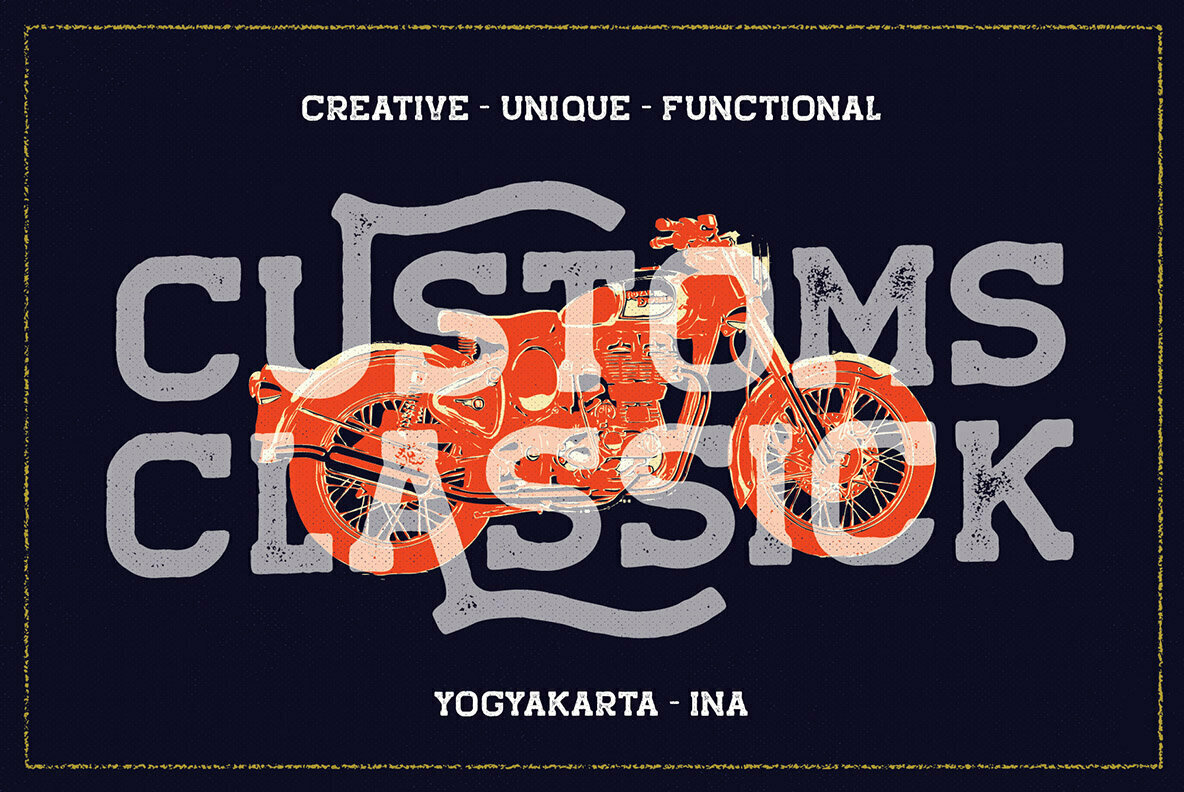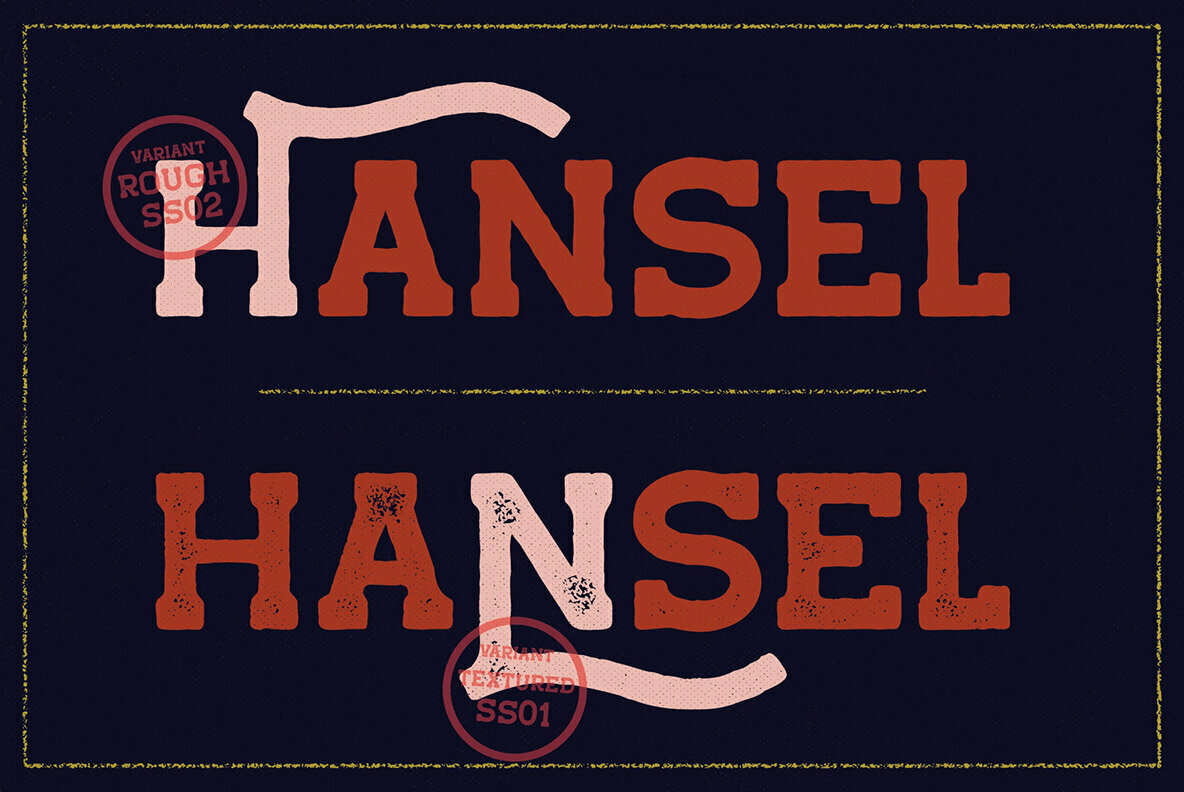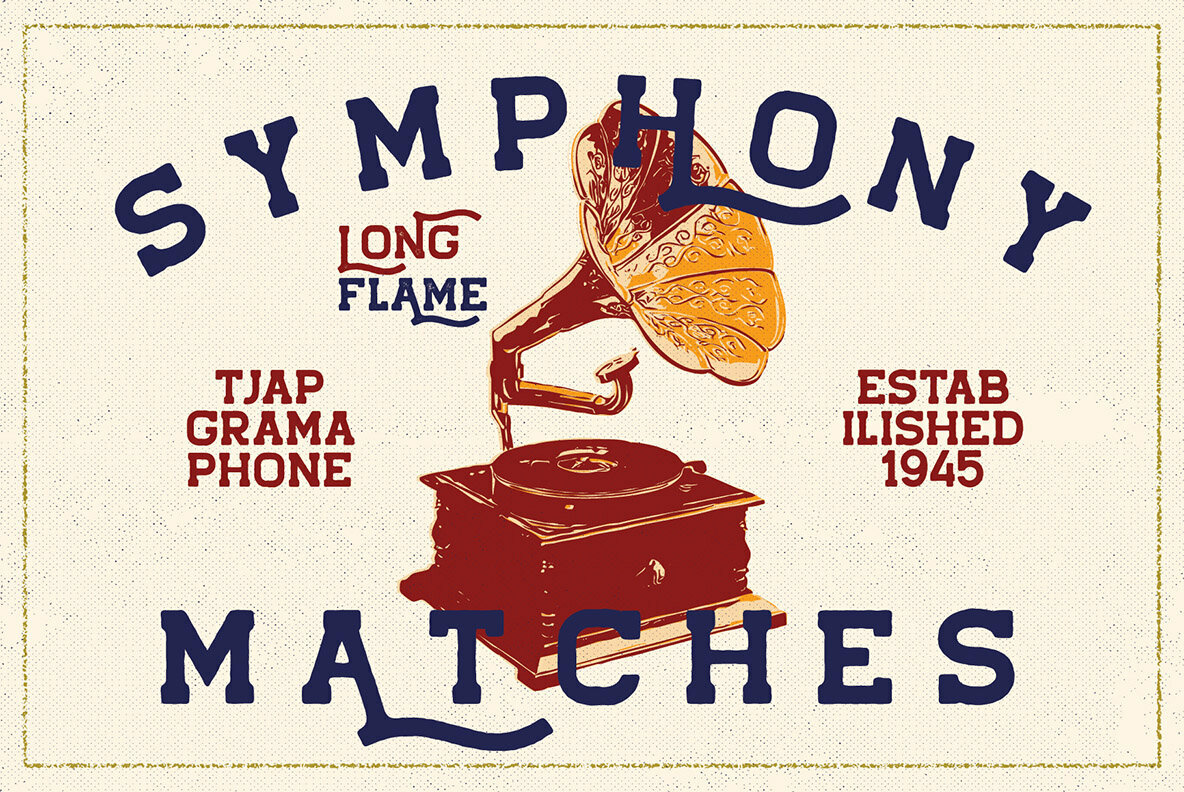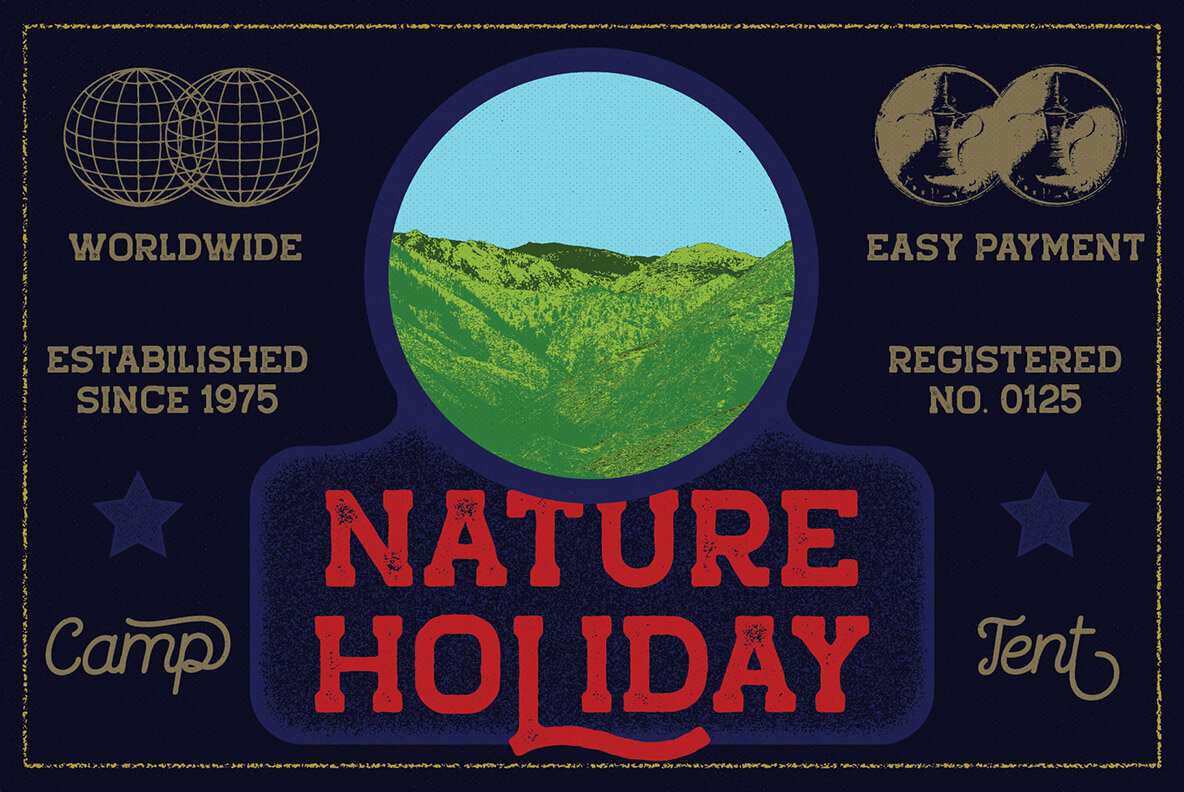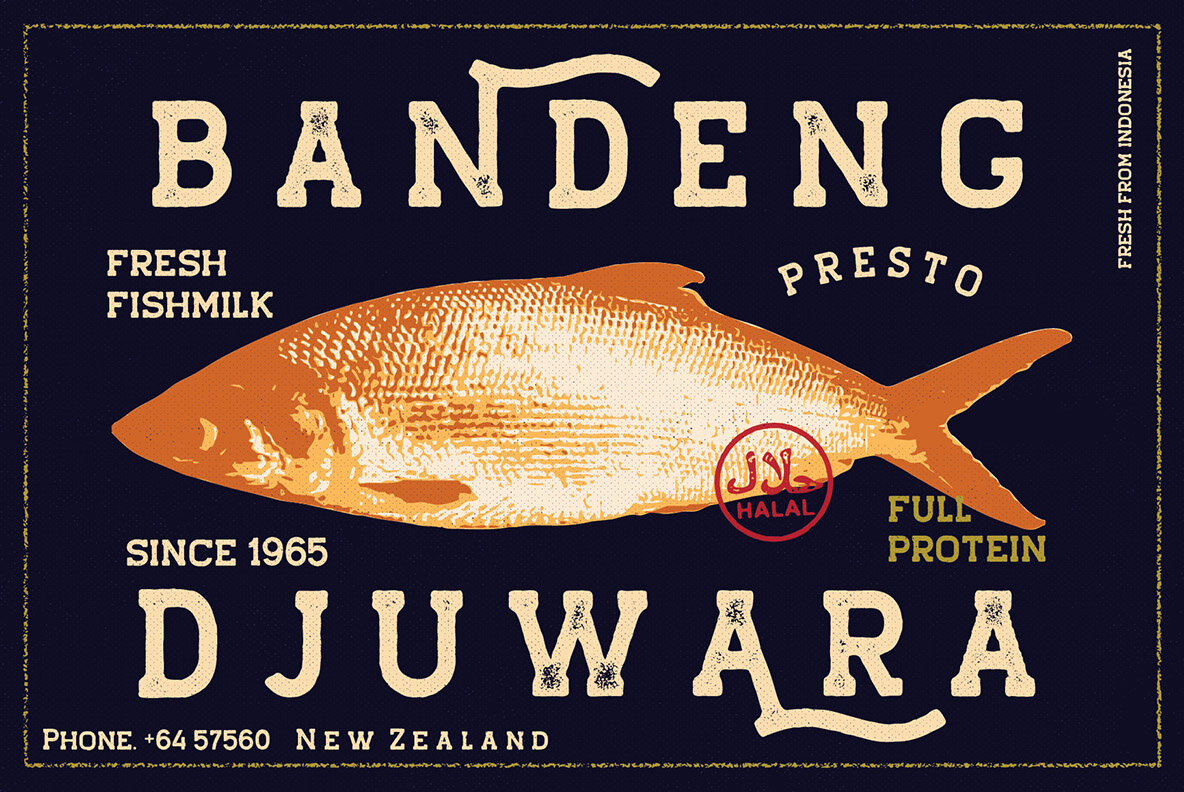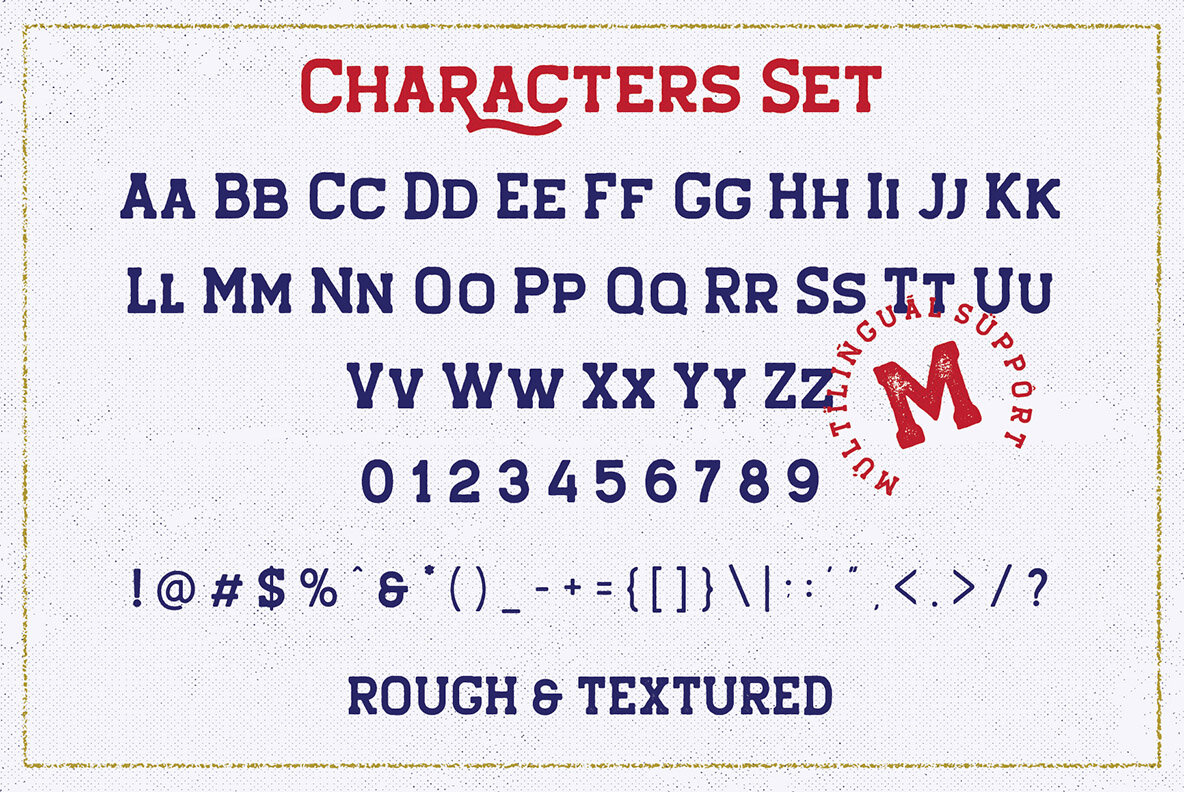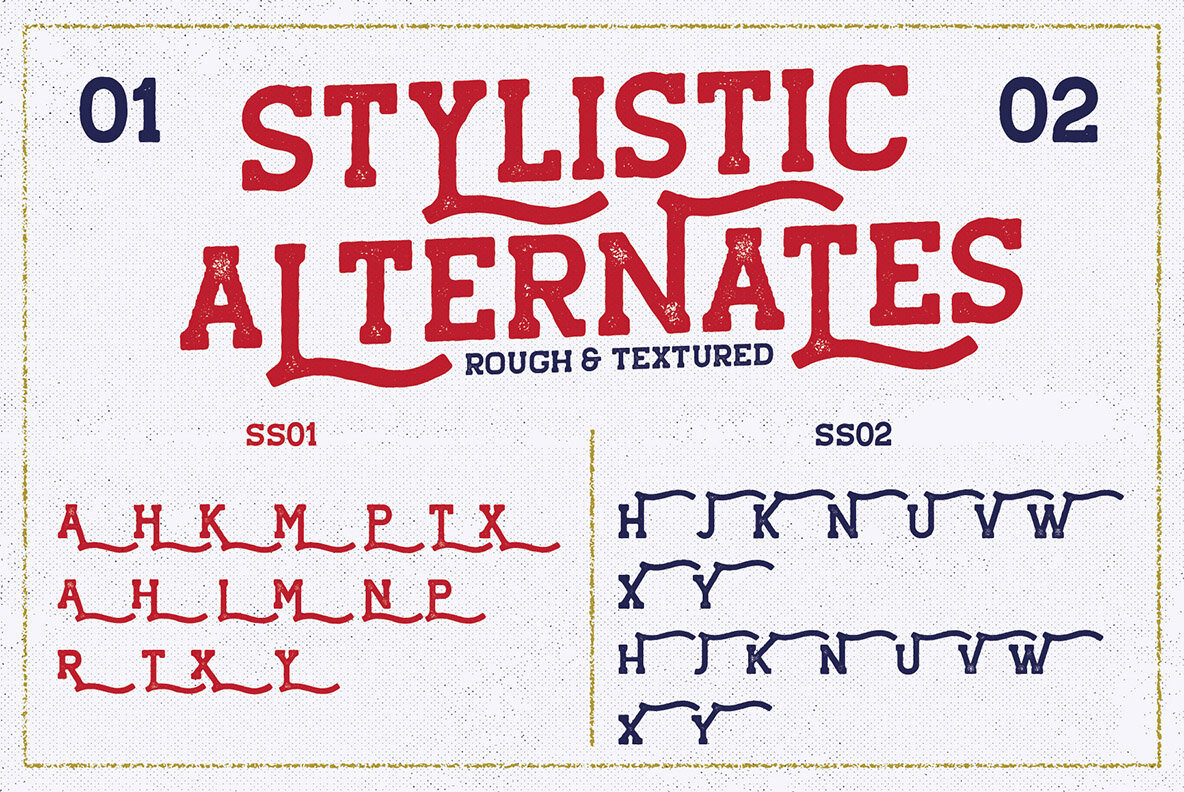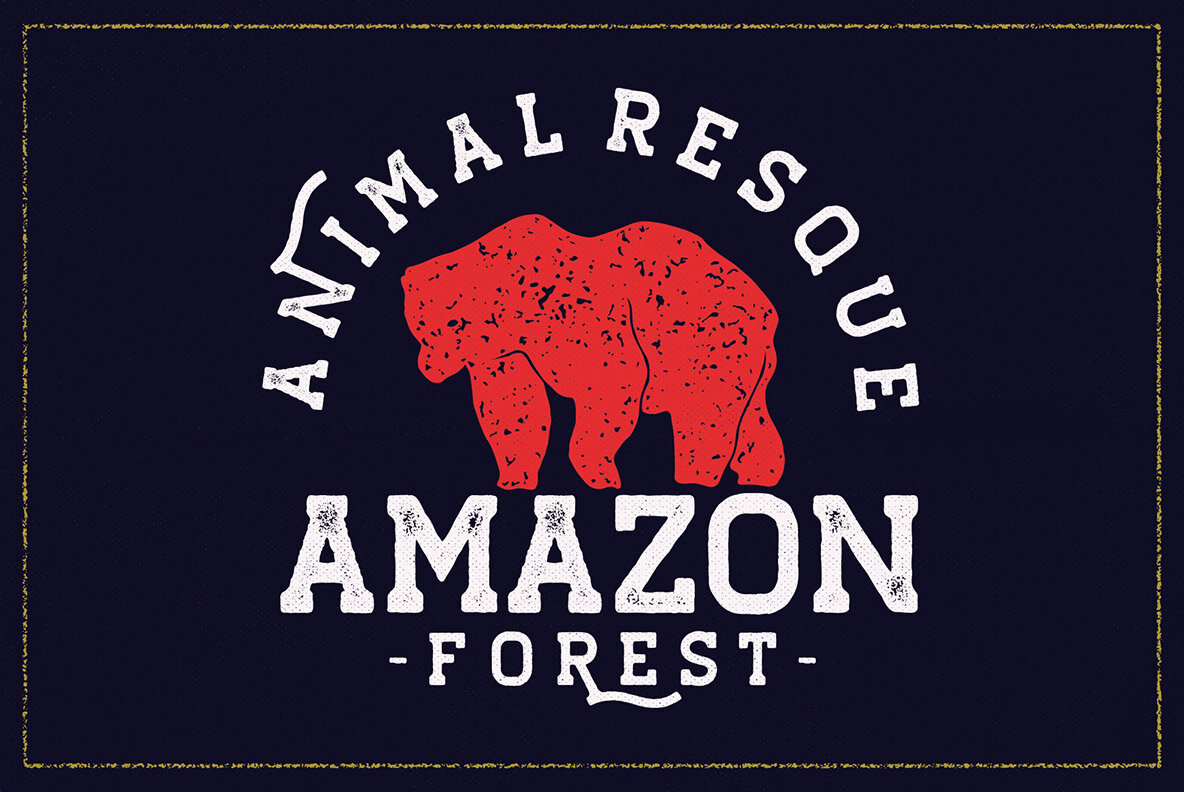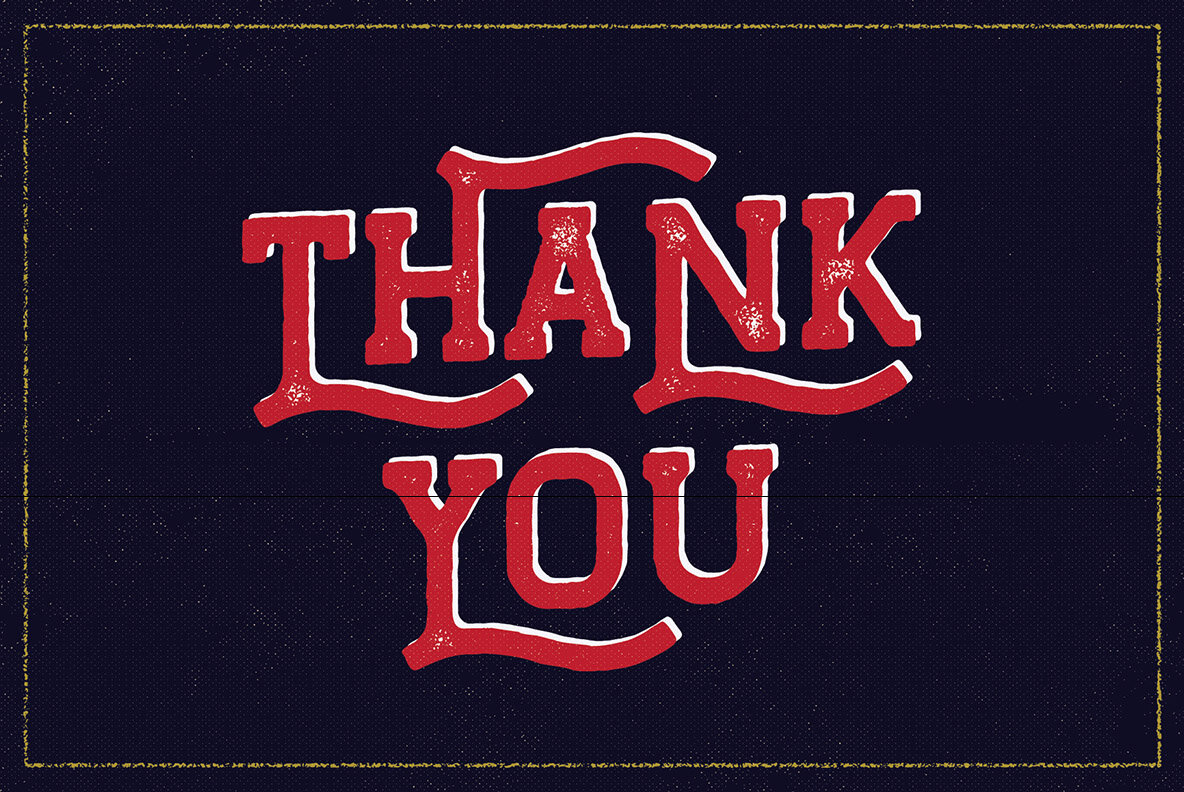
Hansel: A Stylish Slab Serif for Versatile Applications
Hansel, created by Lukman Hidayat, is a dynamic slab serif typeface that comes in two distinctive styles: rough and textured. Its robust design lends itself to a variety of products, offering a unique aesthetic that seamlessly fits into diverse design projects. Whether crafting a captivating quote or designing vintage logos, Hansel's multilingual character sets and stylistic alternates ensure your creative vision is fully realized.
• Rough and Textured Styles – Offers distinct appearance options.
• Multilingual Support – Includes a comprehensive set of characters.
• Stylistic Alternates – Provides creative flexibility.